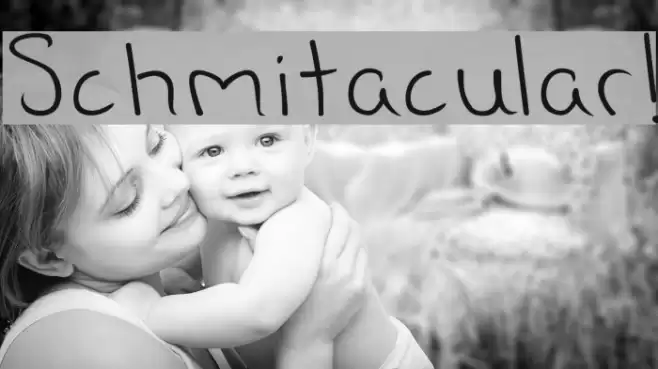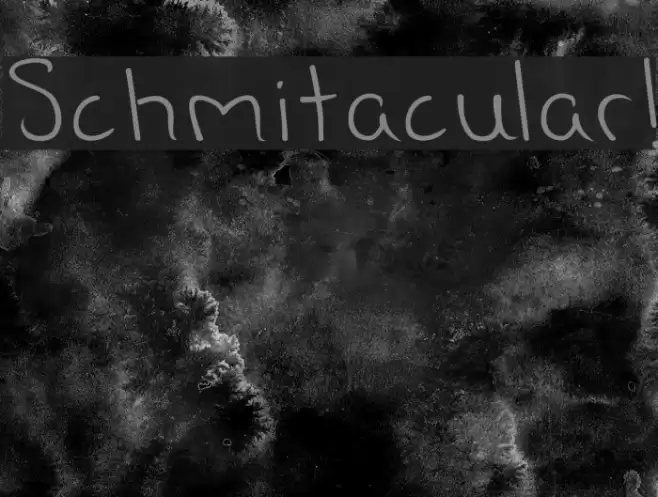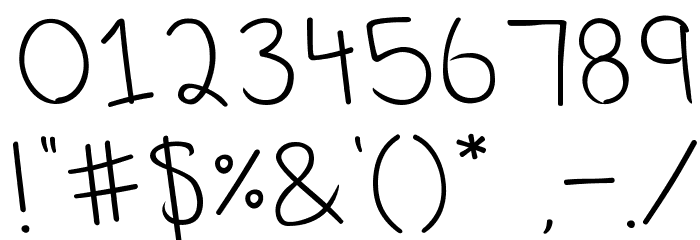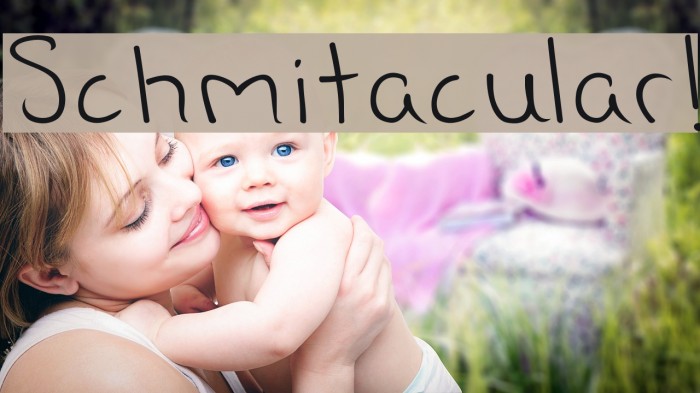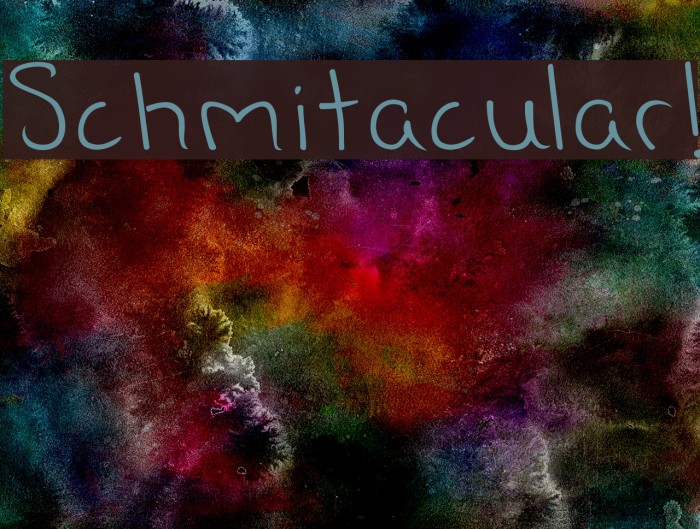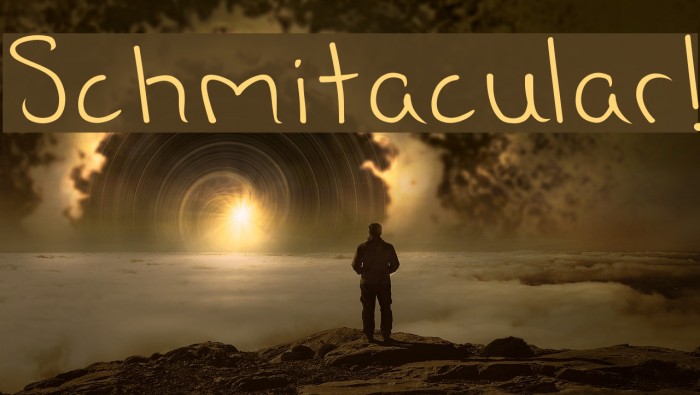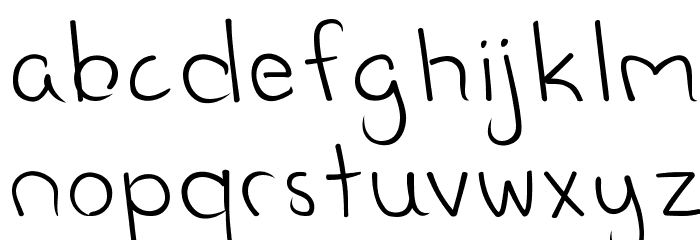
Schmitacular! Font
Schmitacular! Description
This font features a playful and casual handwritten style, characterized by its uneven strokes and slightly irregular letterforms. The uppercase letters maintain a consistent height, while the lowercase letters exhibit a charming, informal appearance. The numerals are rounded and maintain the same whimsical quality as the alphabet. Special characters are crafted with the same playful touch, making the font suitable for creative and informal projects. The overall design is approachable and friendly, ideal for conveying a sense of warmth and personality.
A playful, casual handwritten font with uneven strokes and a friendly appearance from Handwritten fonts.
- Proposed Projects: Ideal for children's books, greeting cards, personal blogs, and informal branding projects.
- Overall Style: Casual
- Use Case: Headlines, Informal text, Creative projects